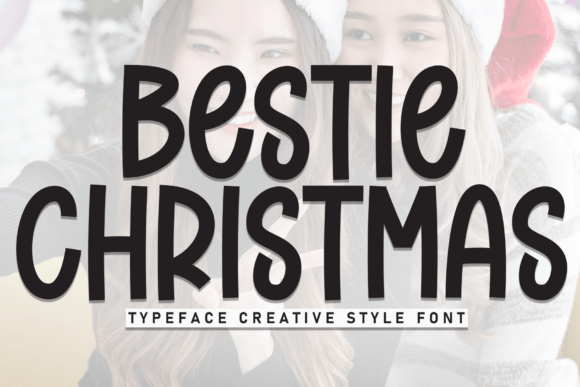
Bestie Christmas Font: A Charming Handmade Font for the Holiday Season
The holiday season is upon us, and with it comes the joy of decorating, gift-giving, and spreading cheer. One of the most wonderful ways to add a personal touch to your Christmas cards, decorations, and gifts is with a beautiful font. Introducing Bestie Christmas, a charming, handmade font that’s perfect for the holiday season. Its warm and playful design adds a cozy and festive feel to everything, making it a must-have for anyone looking to make their holiday season a little more special.
What Makes Bestie Christmas Font So Special?
Bestie Christmas font is a unique and carefully crafted font that’s designed to bring a touch of warmth and personality to your holiday creations. Here are a few things that make it stand out:
- Handmade with love: Bestie Christmas font is a handmade font, carefully crafted with attention to detail to ensure that it has a personal and unique feel.
- Warm and playful design: The font features a warm and playful design that’s perfect for adding a touch of coziness and festivity to your holiday creations.
- Perfect for Christmas cards, decorations, and gifts: Whether you’re creating Christmas cards, decorations, or gifts, Bestie Christmas font is the perfect choice.
How to Use Bestie Christmas Font
Using Bestie Christmas font is easy and fun. Here are a few ideas to get you started:
Create Beautiful Christmas Cards
Use Bestie Christmas font to create beautiful and personalized Christmas cards for your loved ones. Add your own message, photos, and decorations to make it extra special.
Add a Personal Touch to Your Decorations
Use Bestie Christmas font to add a personal touch to your holiday decorations. Create custom banners, garlands, and signs to make your home feel cozy and festive.
Make Your Gifts Extra Special
Use Bestie Christmas font to make your gifts extra special. Create custom gift tags, wrapping paper, and cards to add a personal touch to your presents.
Tips and Tricks for Using Bestie Christmas Font
Here are a few tips and tricks to help you get the most out of Bestie Christmas font:
- Experiment with different colors and textures: Try pairing Bestie Christmas font with different colors and textures to create a unique and eye-catching look.
- Use it with other holiday-themed fonts: Combine Bestie Christmas font with other holiday-themed fonts to create a beautiful and festive look.
- Add your own personal touches: Don’t be afraid to add your own personal touches to your creations, such as photos, illustrations, or custom graphics.
Why Choose Bestie Christmas Font?
Here are a few reasons why Bestie Christmas font is the perfect choice for your holiday creations:
- Unique and handmade: Bestie Christmas font is a unique and handmade font that’s sure to stand out from the crowd.
- Perfect for the holiday season: Bestie Christmas font is specifically designed for the holiday season, making it the perfect choice for all your Christmas creations.
Bestie Christmas font is a charming, handmade font that’s perfect for the holiday season. Its warm and playful design adds a cozy and festive feel to everything, making it a must-have for anyone looking to make their holiday season a little more special. With its ease of use, unique design, and versatility, Bestie Christmas font is the perfect choice for all your holiday creations.